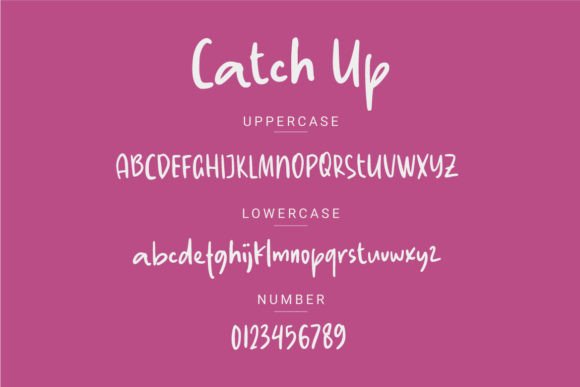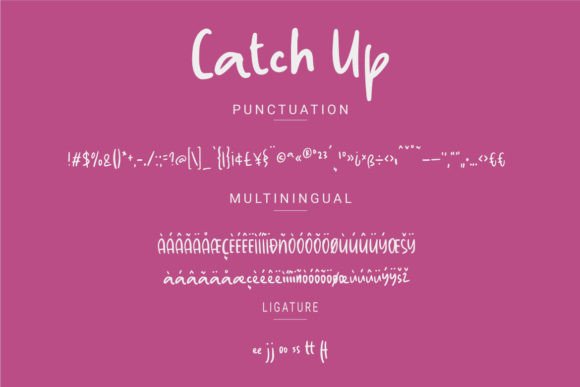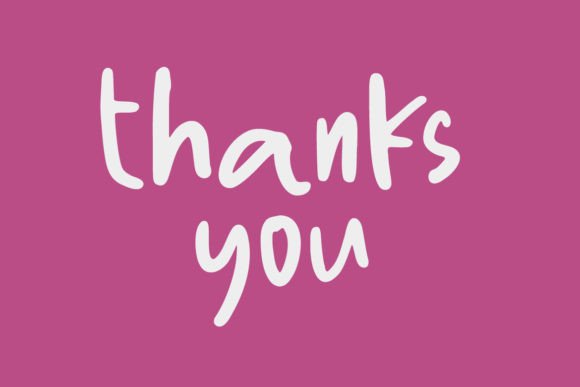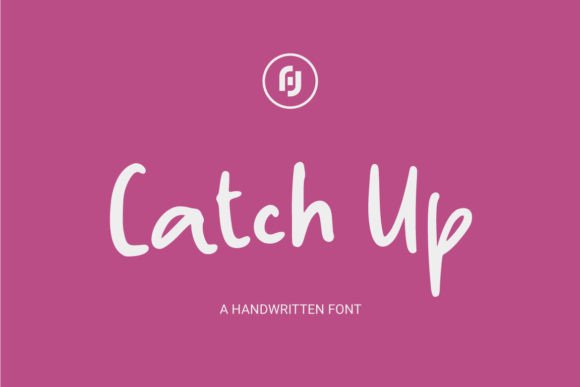
Catch Up Font: The Perfect Handwritten Font for Your Design Needs
Are you looking for a font that exudes a casual, friendly, and inviting aesthetic? Look no further than Catch Up Font, a beautiful handwritten font that is perfect for designers and crafters alike. With its flowing, organic lines and gentle curves, Catch Up Font gives off a relaxed and approachable feel that is sure to capture the attention of your audience.
The Characteristics of Catch Up Font
Catch Up Font is a unique and charming font that boasts a number of distinctive characteristics. Its uneven baseline and slight variations in letterforms contribute to its handwritten appearance, making it feel personal and intimate. The font’s soft, warm, and nostalgic tone is perfect for creating a sense of comfort and familiarity with your audience.
The Benefits of Using Catch Up Font
So why should you choose Catch Up Font for your design needs? For starters, its casual and friendly aesthetic makes it perfect for a wide range of applications, from branding and packaging to social media graphics and blog posts. Additionally, the font’s handwritten appearance gives it a personal touch that is sure to resonate with your audience.
Catch Up Font is a versatile font that is perfect for both designers and crafters. Whether you’re creating a logo, brochure, or social media graphic, this font is sure to add a touch of personality and whimsy to your design. And with its easy-to-read and understand letters, it’s perfect for crafting and DIY projects, such as making signs, cards, and other handmade items.
How to Use Catch Up Font Effectively
To get the most out of Catch Up Font, it’s essential to use it effectively. Here are a few tips to keep in mind:
- Use Catch Up Font for headings and titles to add a personal touch to your design.
- Pair Catch Up Font with a sans-serif font for body text to create a nice contrast.
- Don’t be afraid to get creative and add your own personal touches to your design.
Catch Up Font in Action
So what does Catch Up Font look like in action? Here are a few examples of how this beautiful font can be used:
- Branding and Packaging: Use Catch Up Font to create a logo or label that stands out on store shelves.
- Social Media Graphics: Add a personal touch to your social media graphics with Catch Up Font.
- Blog Posts: Use Catch Up Font to add a touch of personality to your blog posts and make them more engaging.
- Crafting and DIY Projects: Use Catch Up Font to make signs, cards, and other handmade items.
In conclusion, Catch Up Font is a beautiful handwritten font that is perfect for designers and crafters alike. With its casual, friendly, and inviting aesthetic, it’s sure to capture the attention of your audience and add a personal touch to your design. Whether you’re creating a logo, brochure, or social media graphic, Catch Up Font is a versatile font that is sure to meet your design needs.
Overall, Catch Up Font is a wonderful addition to any designer’s or crafter’s toolkit. Its unique and charming appearance is sure to make your designs stand out, and its versatility makes it perfect for a wide range of applications. So why wait? Give Catch Up Font a try today and see the difference it can make in your designs!